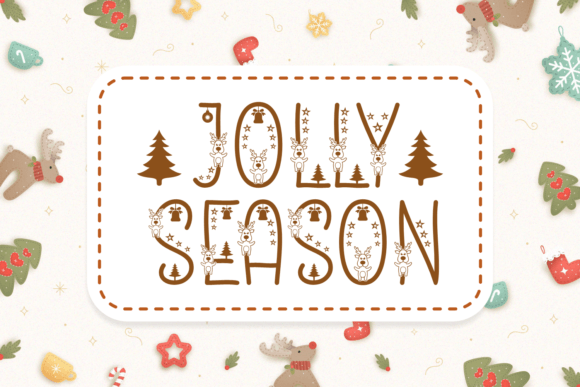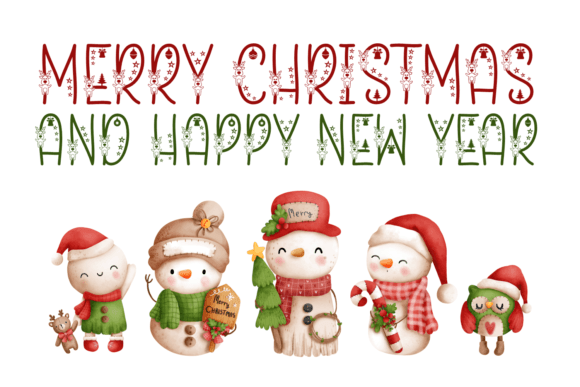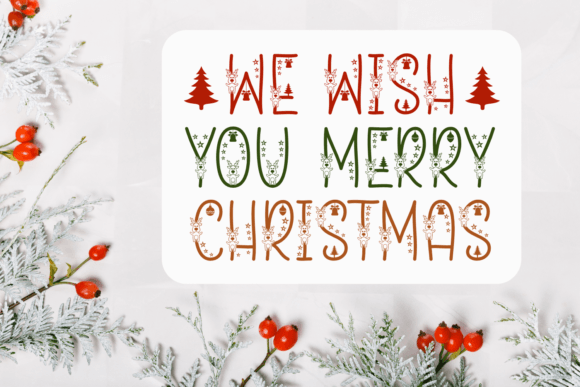
Introduction to Jingle Noels Font
Jingle Noels is the perfect decorative font for your Christmas projects.
Its festive and cute ornaments will enhance all your holiday decor, greeting cards, wall art, and more .
Jingle Noels Font offers exceptional quality and versatility, making it a valuable addition to your design toolkit. Whether you’re creating for personal projects or commercial use, Jingle Noels Font delivers professional results.